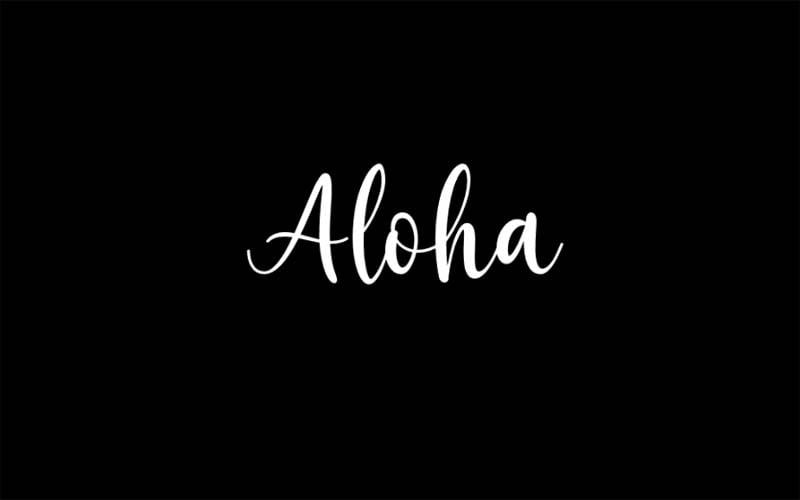
Today we introduce a new Fancy Font Family called Aloha Font. This is a fancy and handwritten typeface with a unique look. A Belgian font designer Nirmala Creative took charge of designing it.
You can openly use this remarkable font for various purposes such as product packaging, invitation cards, special event cards, social media posters, flyers, brochures, banners, and many other purposes.
The main idea behind this unique font layout is to help create a stylish and more attractive design. Because in modern times, stylish designs become the first priority for every user.
Aloha Font
| Font Name: | Aloha Font |
| Style: | Handwritten, Script, Typeface |
| Font Designer: | Nirmala Creative |
As such, it is the right choice for any type of working purpose such as printing as well as display purposes. And we assure you, this will add a unique touch to your future designs.
If you analyze the typeface in-depth, you will have a definite idea of the deviations of the designers who created it. Many graphic designers work with it on their expensive projects.
Because we assure you that this sweet typeface will help you meet the needs of your clients and audience in the meantime. And also help promote your designs in the typewriter market.